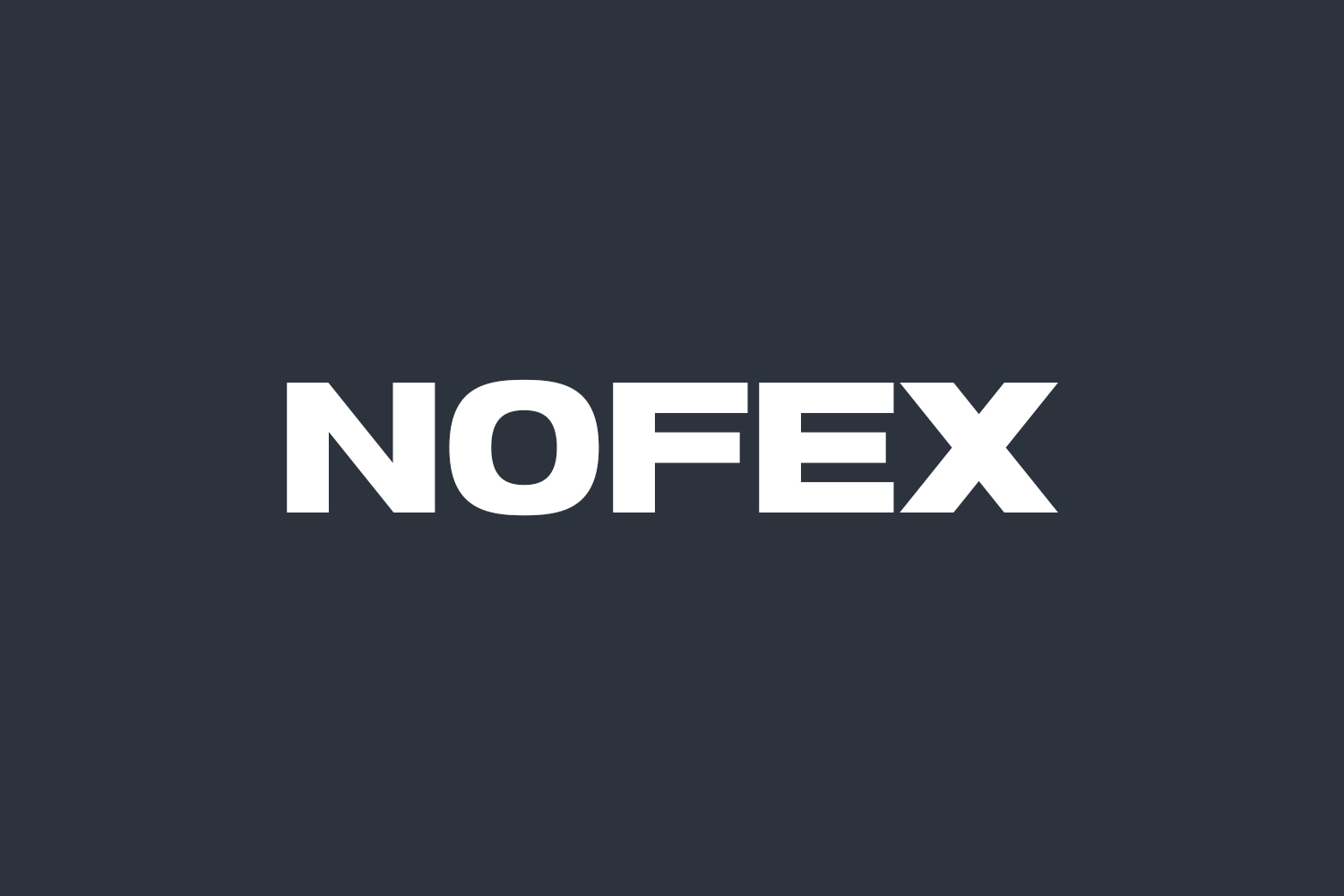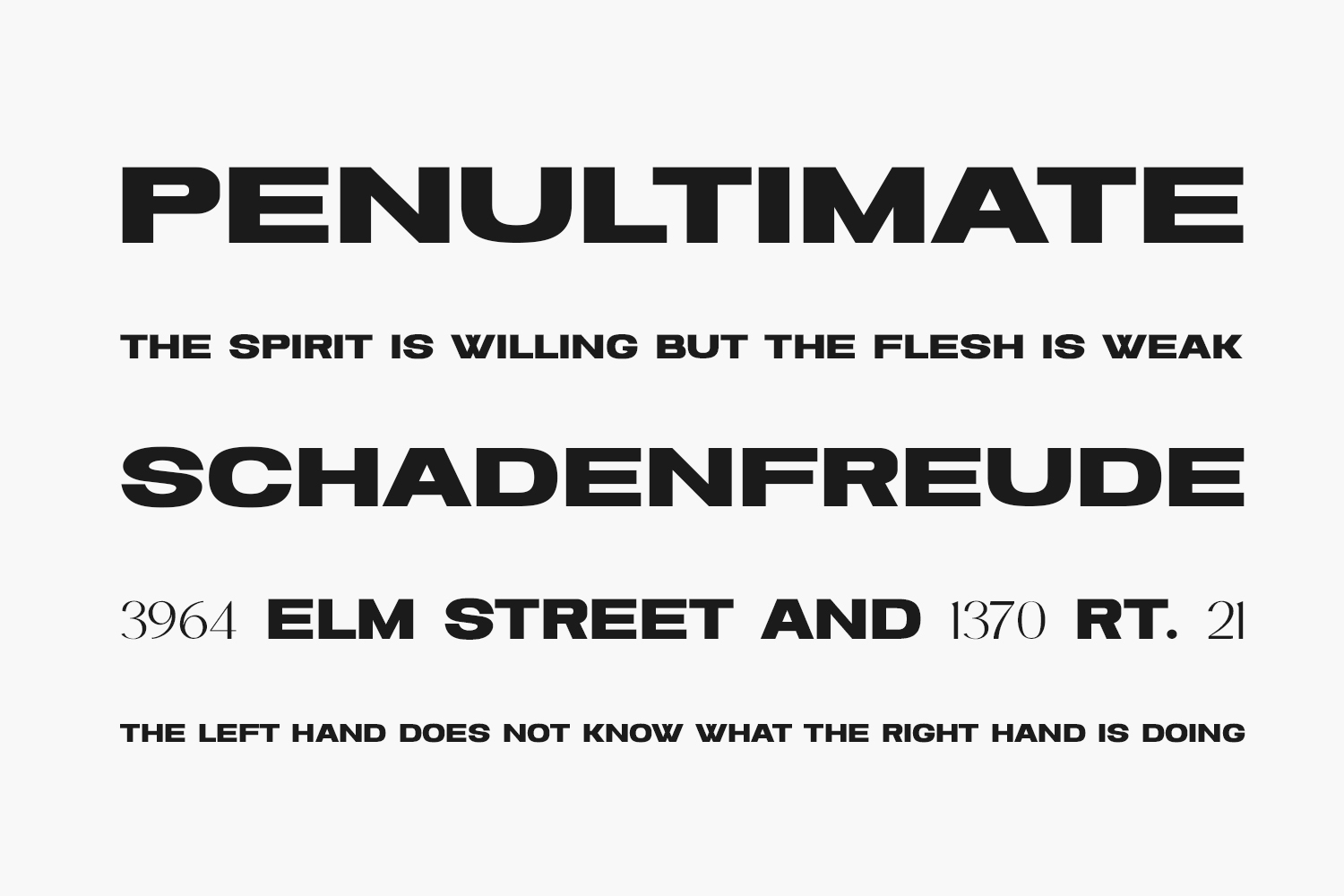
Nofex Free Font – Bold All-Caps Sans Serif for Strong Visual Identity
Nofex is a bold and expressive all-caps sans serif font designed by Ronny Studio to bring strong visual presence and modern clarity to your creative projects. With its clean lines, structured detailing, and powerful appearance, this free decorative typeface works perfectly for crafting memorable logos, magazine covers, brand identities, editorial headers, and more. Available in OTF format — ideal for designers seeking a striking, contemporary font that commands attention while maintaining legibility.
Why Choose Nofex?
- Bold Caps Style: Combines sharp geometry with strong letterforms for a confident, professional look.
- Ideal for Display & Posters: Perfect for large text applications like billboards, event banners, or digital headlines needing visibility from a distance.
Where to Use Nofex?
Nofex shines across a variety of design applications:
- Logos & Branding: Adds intensity to brand kits for lifestyle blogs, fashion labels, or action brands needing a loud tone.
- Poster & Billboard Design: Designed for maximum visibility — makes headlines pop in outdoor advertising and movie posters.
- Social Media Graphics: Creates bold text overlays for Instagram Stories, TikTok videos, or YouTube thumbnails with a gritty vibe.
- Packaging Design: Brings strength to product tags on novelty items, beverage cans, or streetwear labels requiring an edgy look.
- Editorial Headers: Stands out in blog headers, magazine covers, and digital banners with a crisp, stylish charm.
Design Tips with Nofex
To get the most from Nofex, pair it with minimalist layouts and contrasting colors to let the font shine. Use this bold type for short slogans or title headers where legibility isn’t compromised. For print work, apply subtle textures or drop shadows to enhance its industrial appeal. Try our interactive font preview tool below to test Nofex with your own text before downloading!